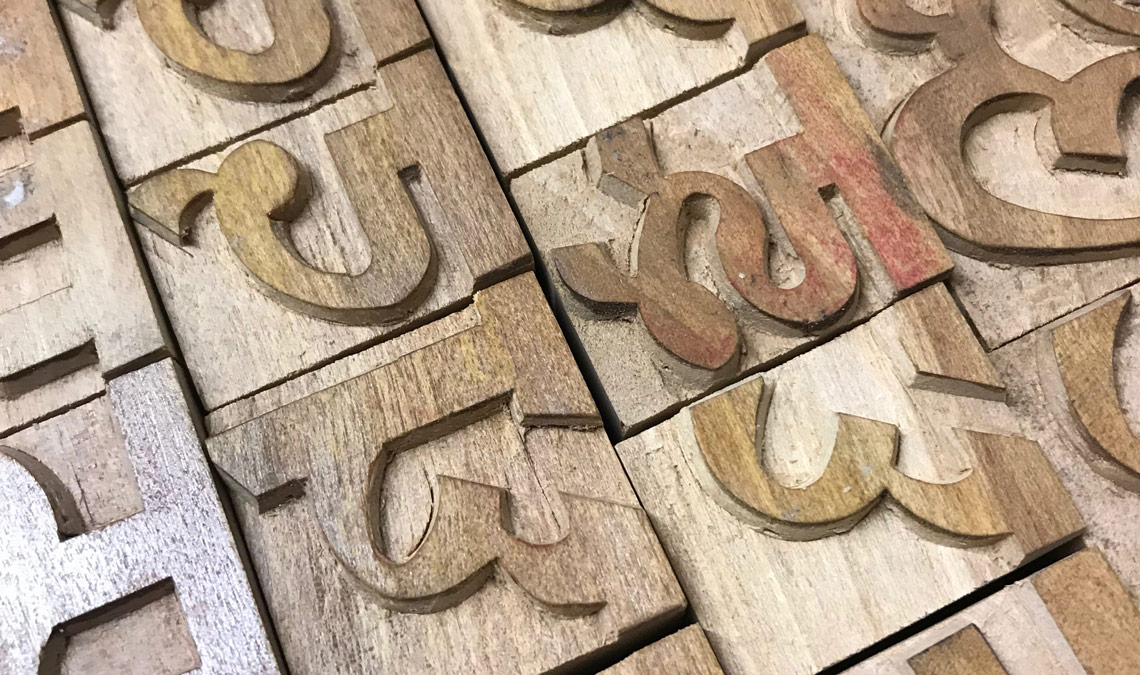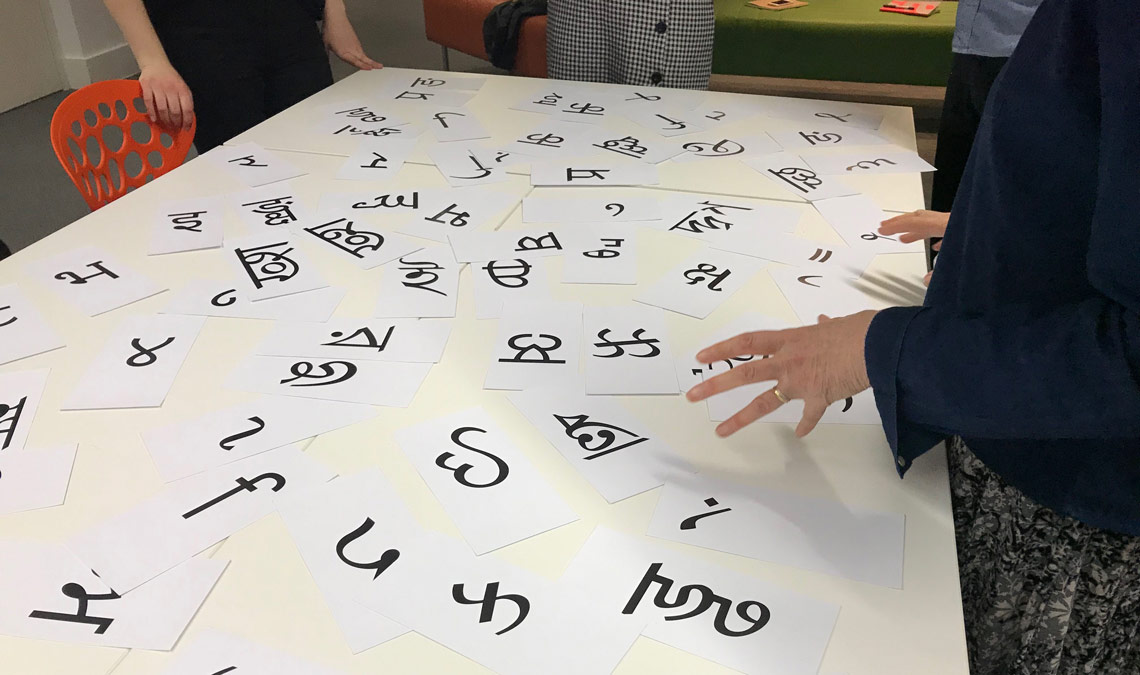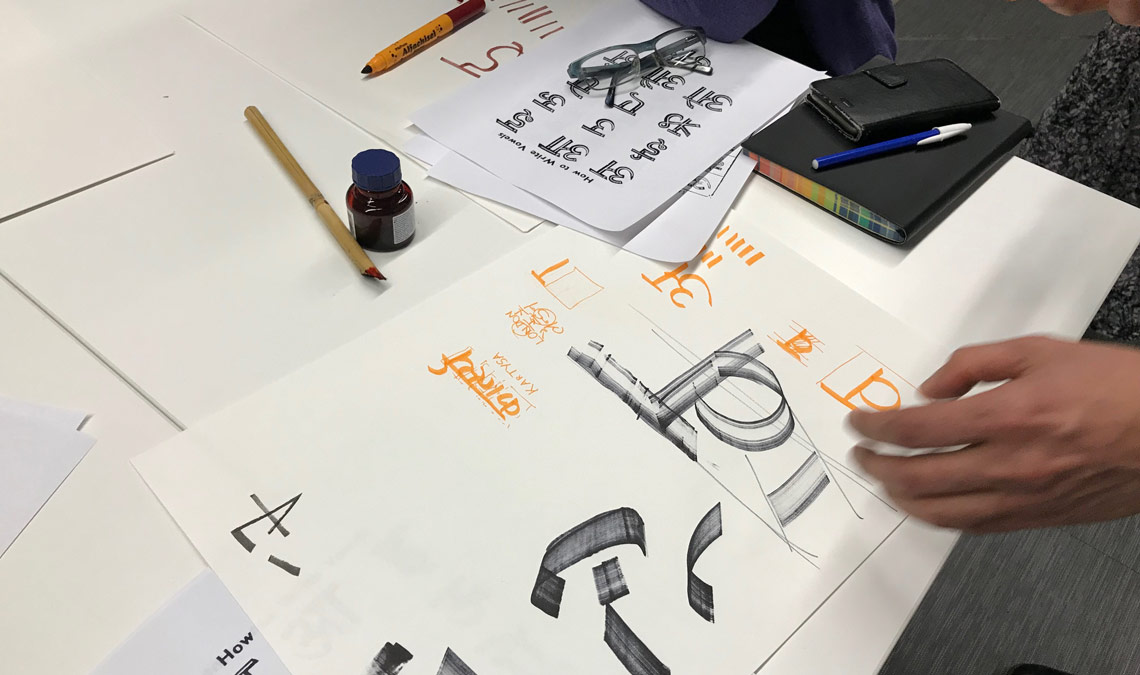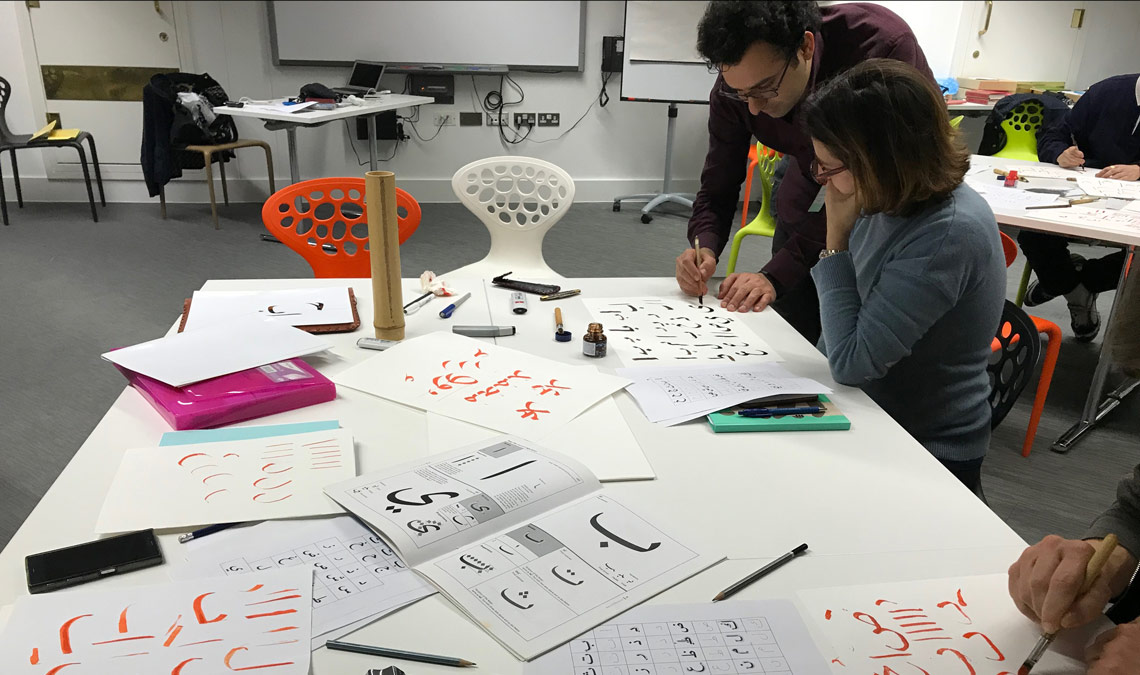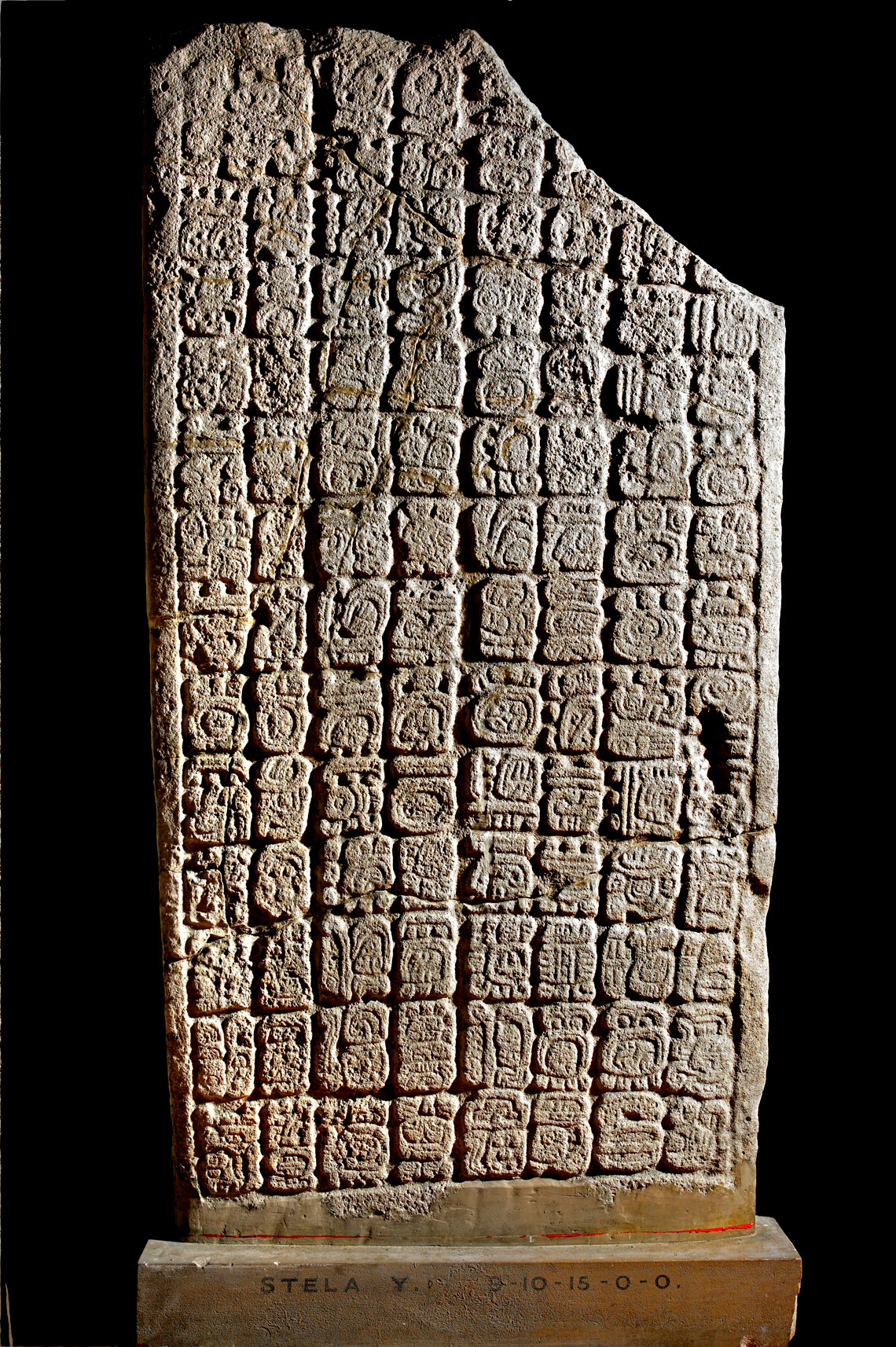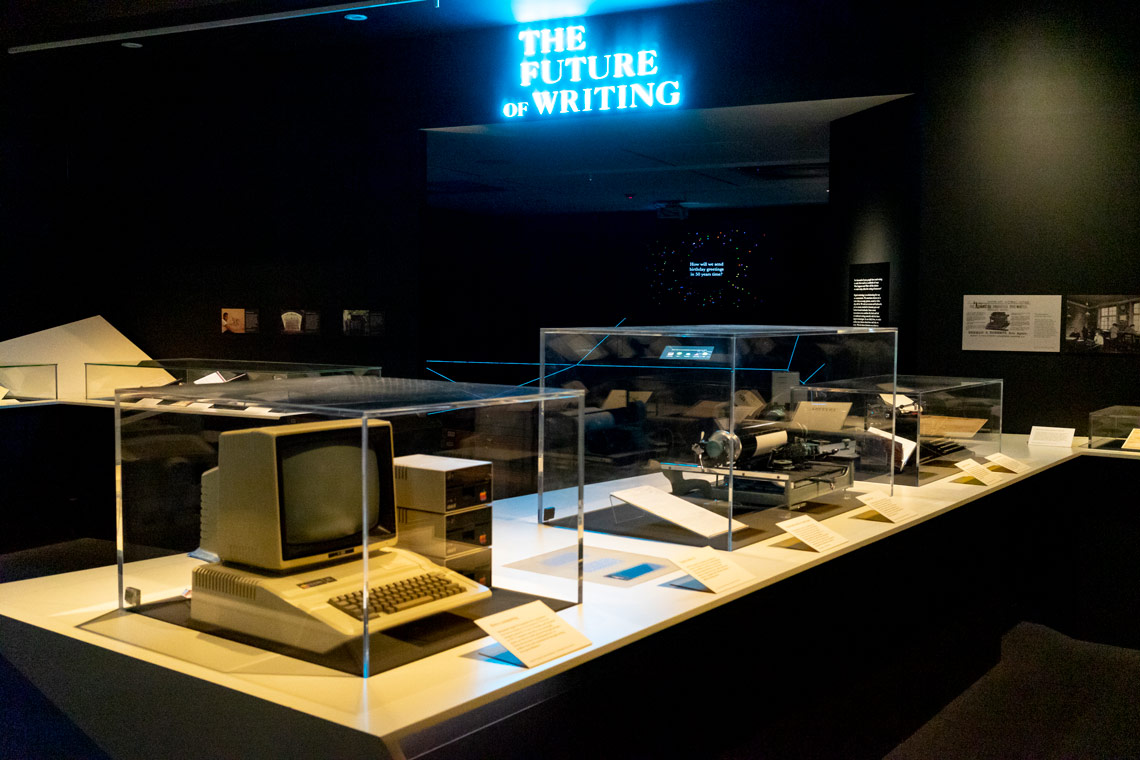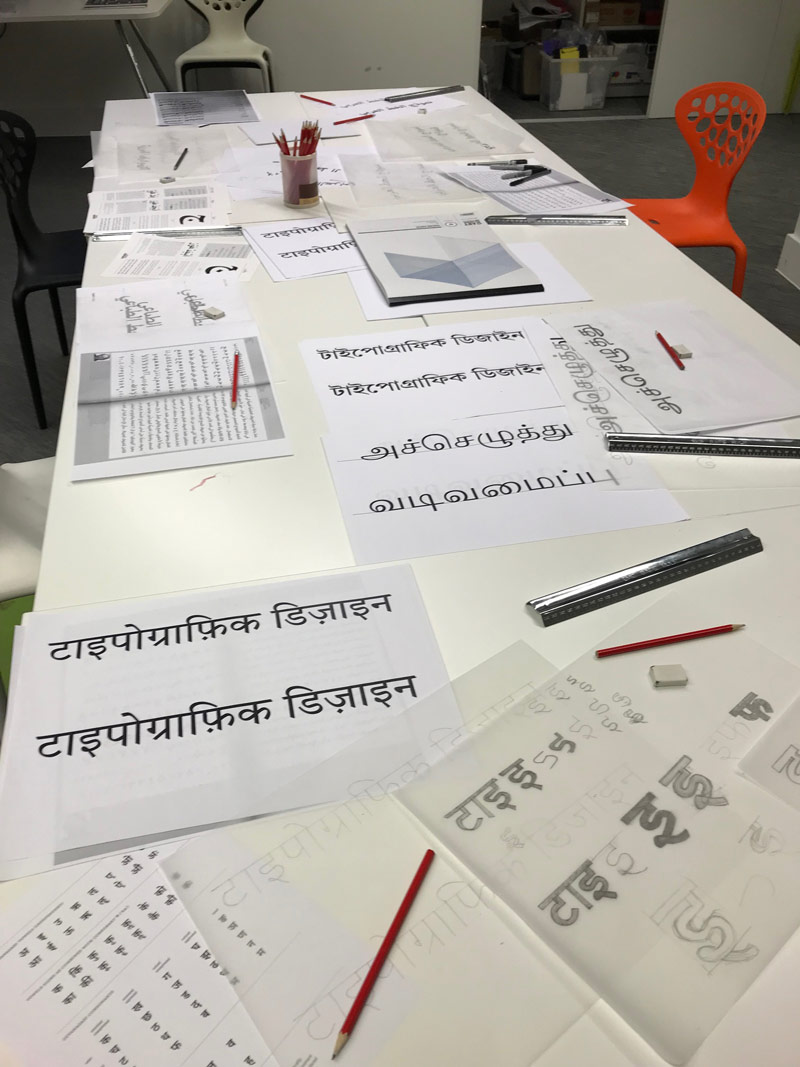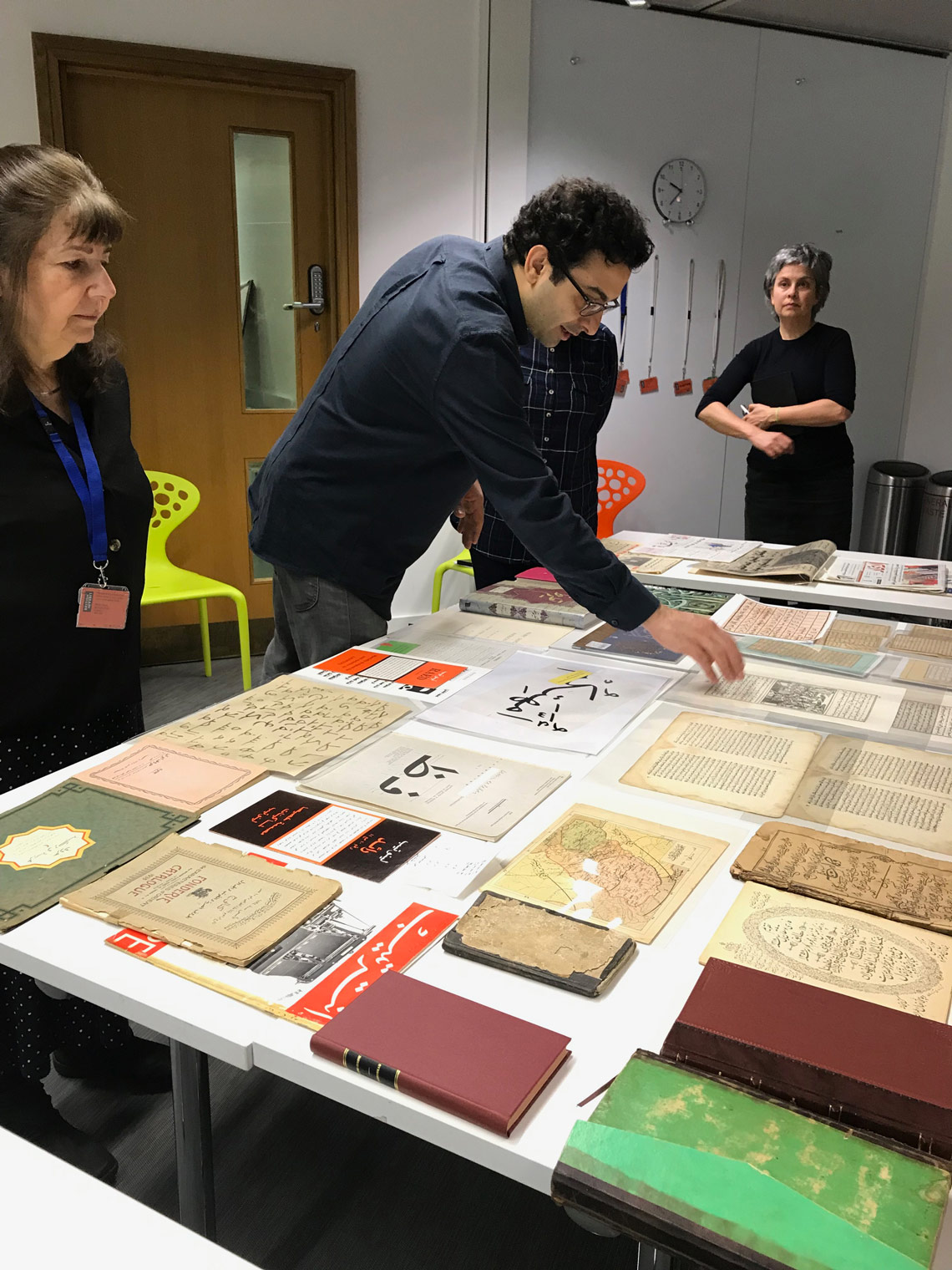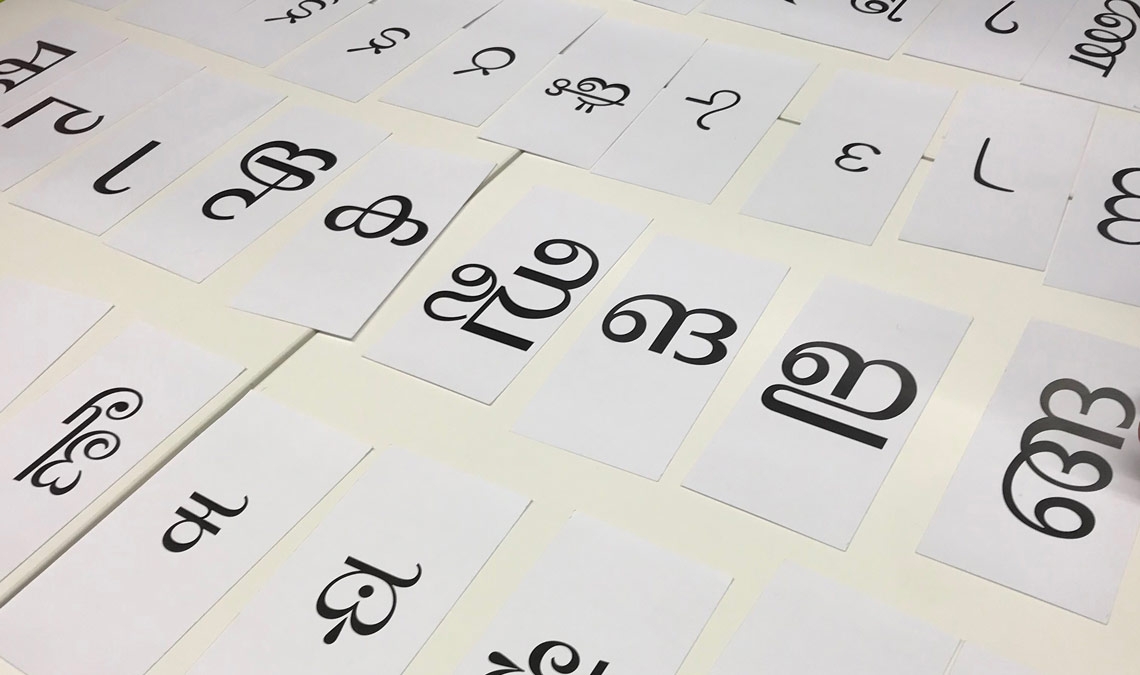
Report on Introduction to Non-Latin Type Design Workshop
An immersion into Arabic, Devanagari, Tamil, and Bengali at the British Library. Elena Veguillas reports on the two-day workshop ‘Introduction to Non-Latin Type Design’ led by Professor Fiona Ross, Dr Vaibhav Singh, and Borna Izadpanah.
After five great days in Vicchio with the entire TypeTogether team, I went to the British Library to enjoy two more days of intense type design at the workshop ‘Introduction to Non-Latin Type Design’. My brain was still fresh with Pooja Saxena’s and Azza Alameddine’s lectures on Devanagari and Arabic, respectively, so I was more than ready to meet Fiona Ross, Vaibhav Singh, and  Borna Izadpanah. This was a great opportunity to improve my knowledge of Devanagari, Tamil, Bengali, and Arabic purely from a design perspective.
Although the workshop was aimed at the general public, only a few students were completely inexperienced with type design or typesetting. The majority were type designers or, like myself, worked with type on a daily basis. This set the scene for a high level of interaction and conversation from the very first moment.
After introductions the first day, Fiona presented the workshop’s aim and schedule and delivered the first lecture. We then started familiarising ourselves with some of the concepts we would be exploring later. She addressed the term non-Latin, a problematic one to say the least. (For further understanding of this point I recommend reading the article ‘Latin & non-Latin: The politics of script classification in the global type design industry’ by Soulaf Khalifeh, where she discusses the problems derived from a binary approach: Arabic and non-Arabic, Indian and non-Indian, etc.)
After the first lecture — where those less experienced with type might have missed some basic concepts, like the difference between type, lettering, and calligraphy — we began the first practical exercise. A simple card game was enough to have first contact with the characteristics of some scripts: contrast, weight, proportions, etc. Having to distinguish Telugu from Malayalam, Kannada, or Sinhala without indications was  fun but challenging.
Visiting the library’s current exhibition, ‘Writing: Making your Mark’, was part of the workshop, and on Saturday we were lucky enough to have with us Emma Harrison, curator of Chinese Collections at the British Library. She explained each of the sections and the most relevant items. On Sunday we were able to take more time to go through the exhibition on our own. After a quick visit to the exhibition, we started to play with some calligraphic forms. We were encouraged to decide the script and the tools we wanted to use. The most important aspect was to understand the direction and contrast of the stroke and to get a sense of the script.
As mentioned before, on Sunday we had more time to explore the exhibition ‘Writing: Making your Mark’. It shows some of the library’s items collected from around the world, such as Mayan writing, Egyptian hieroglyphics, and more recent items like the Double Pigeon Chinese typewriter .
Although the exhibition includes some amazing items, and I definitely recommend the visit, I could not help but feel it was more oriented toward the Latin script — quite reasonable, as it was held at the British Library — which seemed like a lost opportunity to lay down stronger bridges to other cultures and scripts (something so needed these days). However, the catalogue’s content is way more exhaustive than the exhibition and, despite having one entire chapter devoted to Roman lettering, it is much better balanced.
Limestone stela with Mayan glyphs This fascinating item was part of the exhibition ‘Writing: Making Your Mark’. It was carved at Pusilhá, Belize, in 647 AD and shows the Mayan script. © Trustees of the British Museum. Image from the British Library website.
Writing & TechnologyObsolete technology at the British Library exhibition ‘Writing: Making Your Mark’. © Tony Antoniou. Image from the British Library website.
The rest of the day was a combination of theory, resources, and practice. Fiona offered a useful lecture on aspects that should be taken into consideration when designing Indian or Arabic scripts (like joining or non-joining, the direction of the script, positioning, etc.) and offered some guidelines.
Meanwhile, Vaibhav and Borna had displayed many items (newspapers, books, manuscripts, and more) for us to touch, photograph, and study while they explained their significance. They proposed a lettering exercise consisting of tracing the skeleton of words in Arabic, Bengali, Devanagari, or Tamil, and then expanding them into low contrast forms.
For the last hours of the workshop we were invited to decide our preferences: explore the calligraphic essence of the scripts, research the letterforms with constructed lettering, dive deep into the physical items on display, or any combination of those choices. This approach meant that learning the very first steps of a new script was not overwhelming and it allowed the participants to take the most useful path to them.
The result was two fantastic and insightful days exploring Arabic and Indian type with three generous and knowledgeable tutors, a great pack of colleagues that I hope to see again soon, and a solid first step in exploring scripts beyond Latin, questioning existing designs, and using research to inform practice.